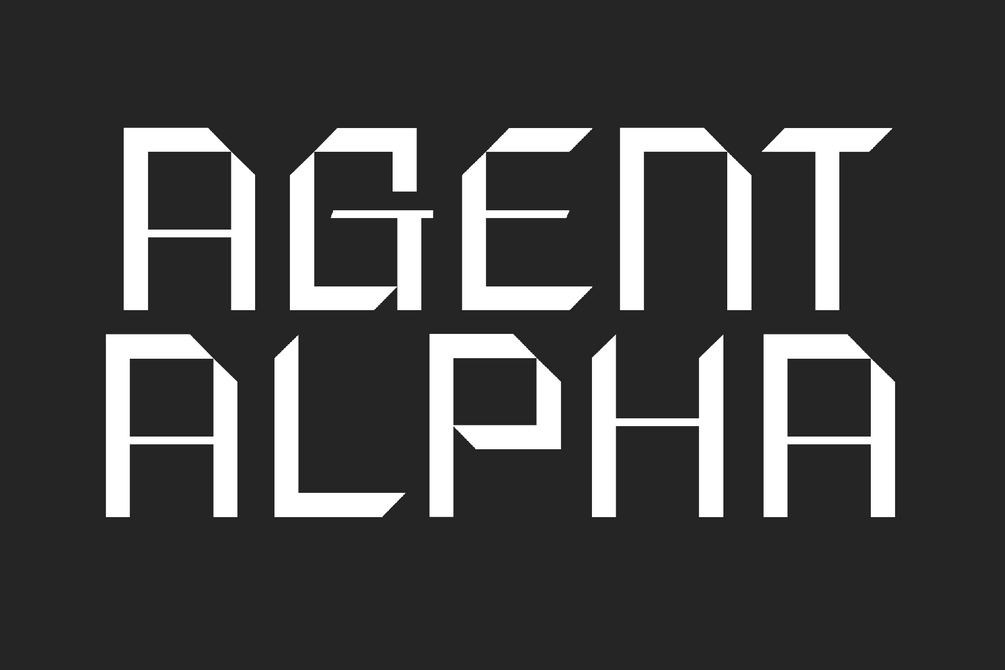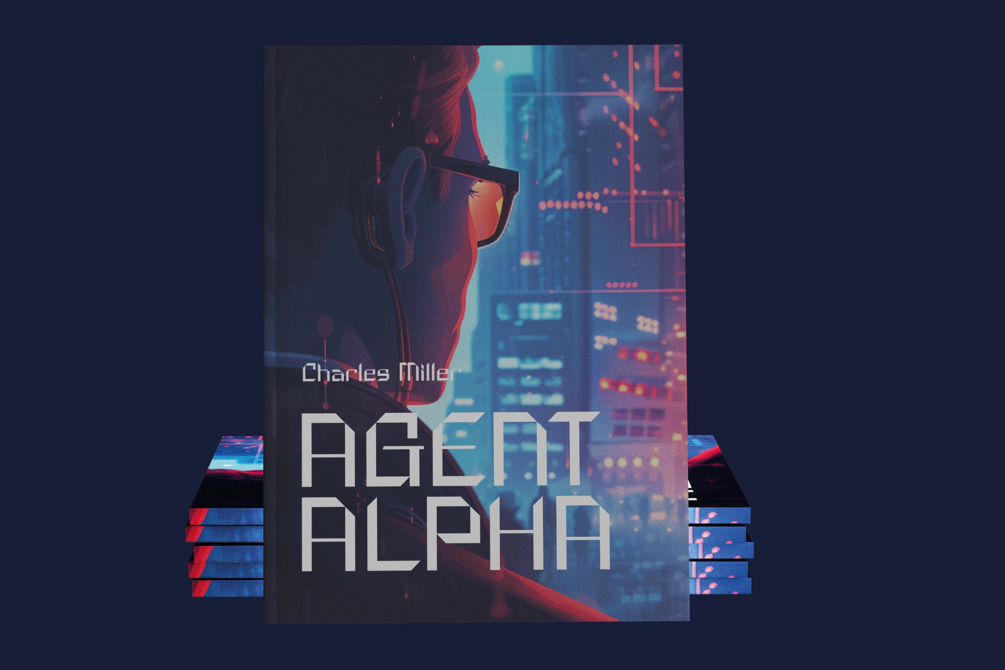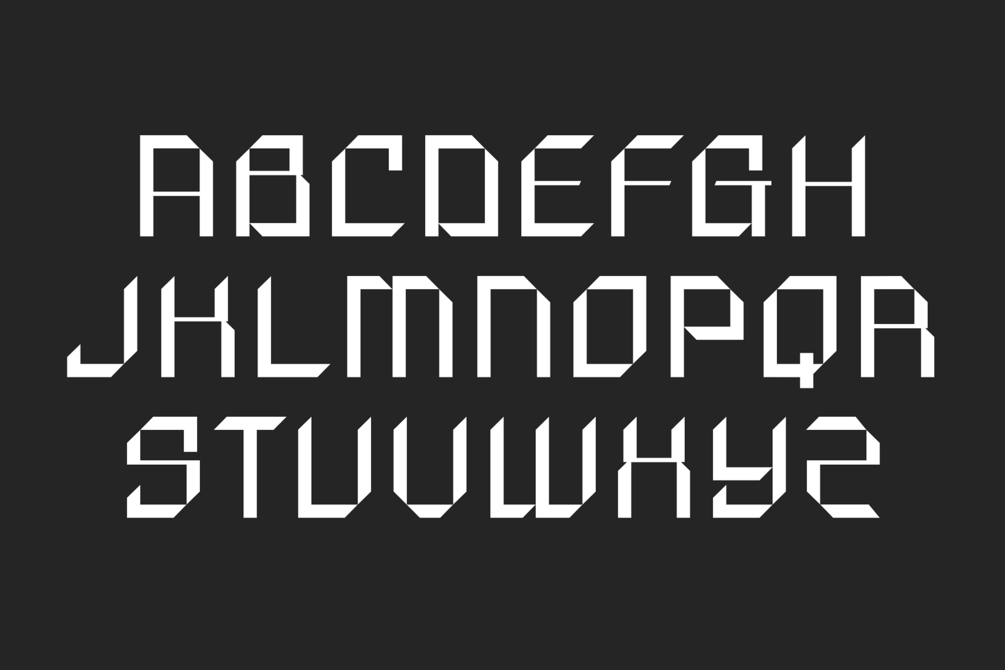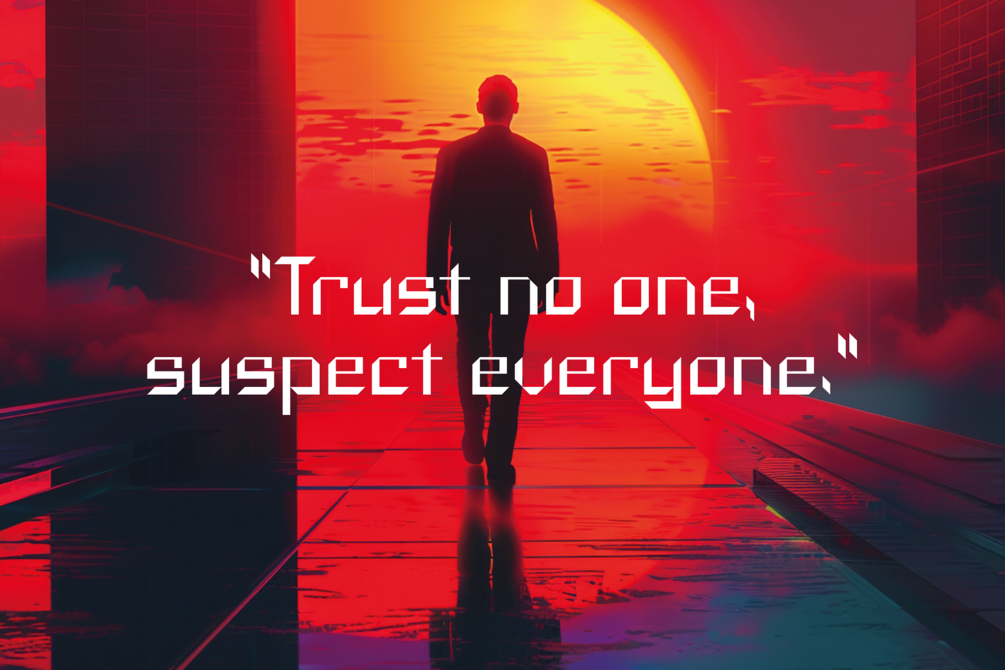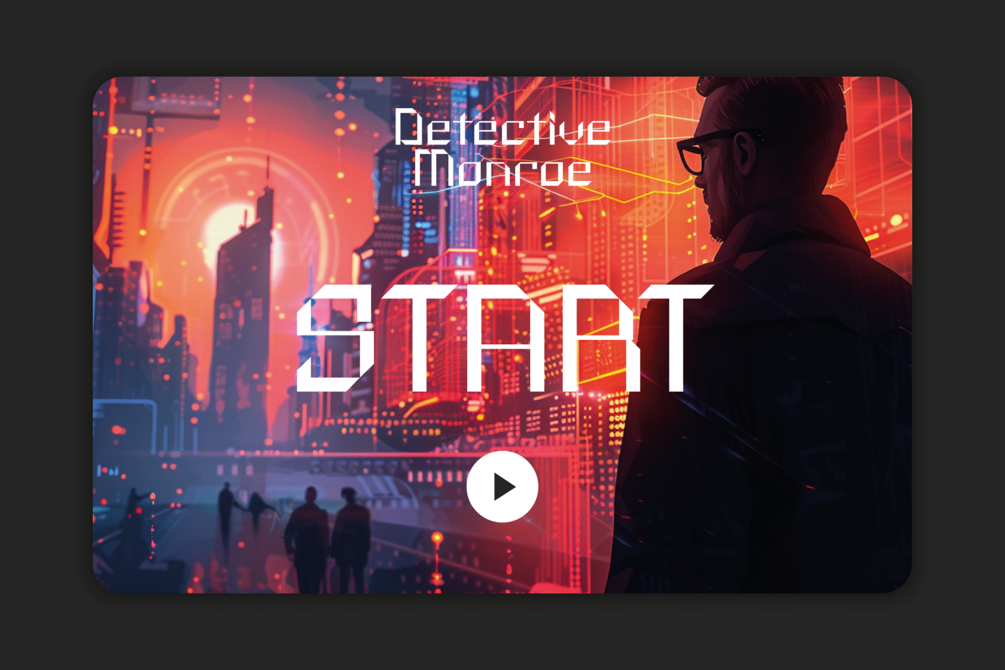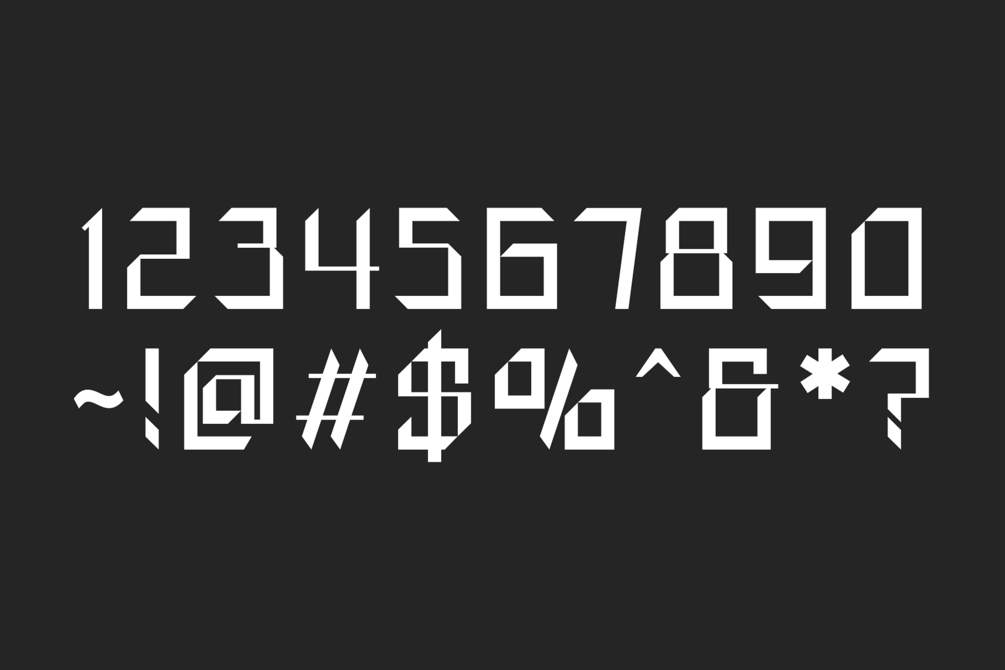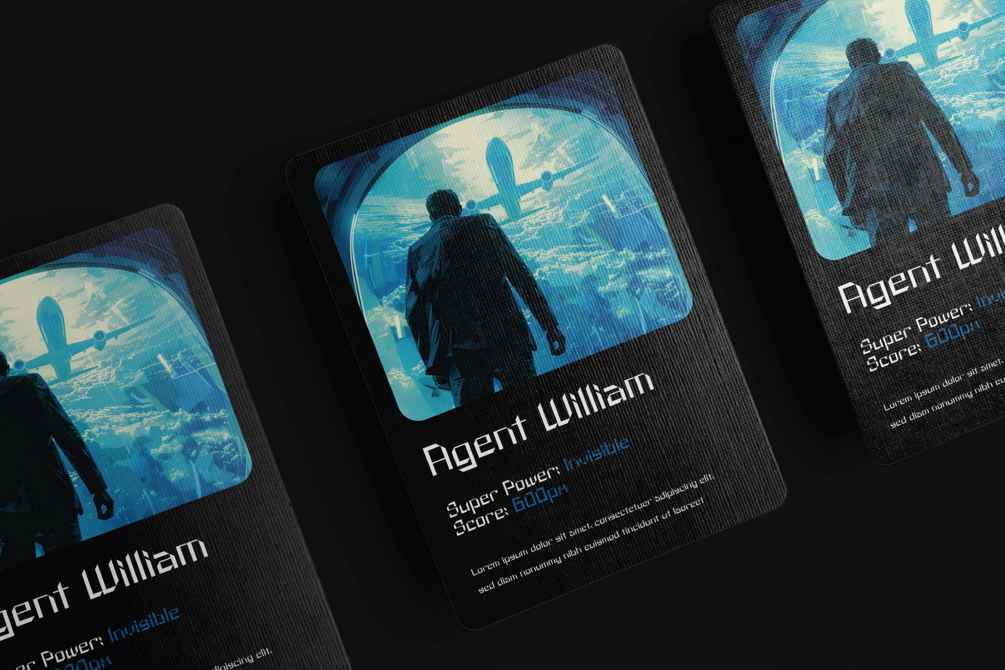
Agent Alpha - Minimal Typeface
Agent Alpha is not just a font; it’s a declaration of sophistication and stealth, inspired by the high-stakes world of spy thrillers. This sharp, minimal industrial font is meticulously designed to capture the essence of espionage and futuristic branding. With its clean lines and precise angles, Agent Alpha embodies the cutting-edge technology and sleek aesthetics that define the genre.
Perfect for projects aiming to convey a sense of intrigue and intelligence, Agent Alpha is the go-to choice for brands looking to stand out in the digital age. Its characters, designed with an eye for detail, offer a unique blend of functionality and style, making it ideal for everything from tech startups to luxury brands that aim to project a modern, forward-thinking image.
Agent Alpha is engineered for the visionaries, the innovators, and the brands of tomorrow. Its sharp, industrial qualities make it an impeccable choice for those who operate at the forefront of design and technology. Let Agent Alpha be your ally in crafting a brand identity that is as enigmatic as it is elegant, and as futuristic as it is foundational. Embrace the world of espionage aesthetics and let your branding mission begin with Agent Alpha.